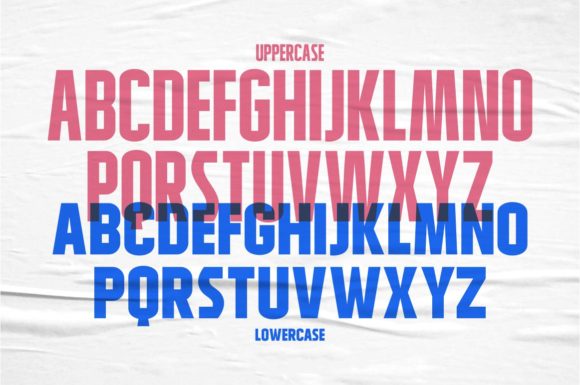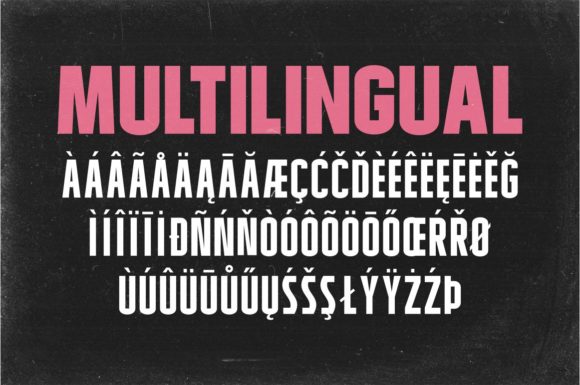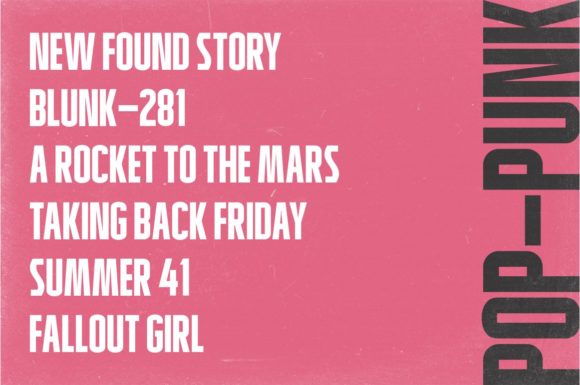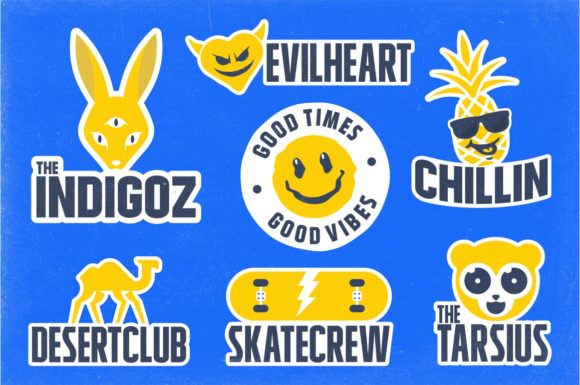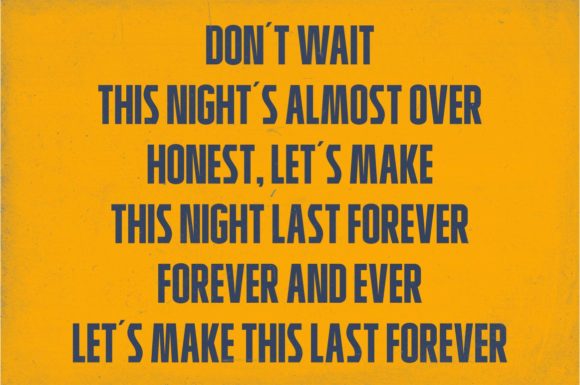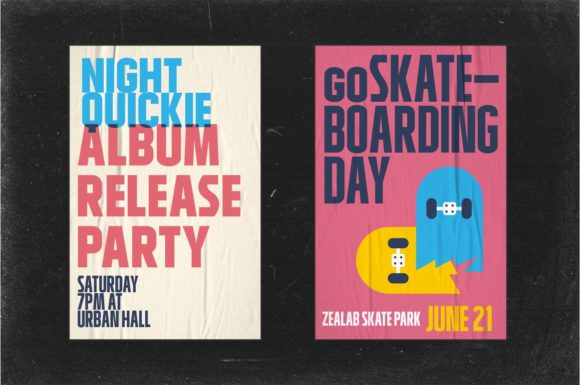
Introduction to Richson Font
Have you ever stared at a blank canvas, eager to bring your creative vision to life? The blank page can be intimidating, but with the right tools, anything is possible. For designers, the perfect font can make all the difference in elevating their work from ordinary to extraordinary. That’s where Richson Font comes in – a strong display font that exudes personality and sophistication.
Richson Font is a game-changer for any creative project, whether it’s a logo, branding, social media post, or flyer. Its high quality and versatility make it an ideal design resource for professionals and enthusiasts alike. With a transparent background and crisp lines, Richson Font is perfect for designers looking to add a touch of elegance to their work.
Key Features of Richson Font
- High-quality font with a transparent background, perfect for creative projects that require a touch of elegance.
- Richson Font features a unique blend of modern and classic elements, making it a versatile choice for various creative projects.
- Perfect for use in logos, branding, and other design elements where a high-quality, professional font is required.
Honest Review: Richson Font
- High quality typography: The Richson Font boasts crisp, clean lines that make it perfect for a variety of design applications.
- Transparency: The transparent background option is incredibly versatile and allows for seamless integration with any background.
- Customization: I’ve been able to easily adjust the font size, style, and color to suit my design needs.
✨ The Richson Font has been a great find for me, and I’ve been able to incorporate it into several high-quality designs.
- ⚠️ Limited font styles: While the Richson Font is available in a few different styles, I would have liked to see more options for variety.
- ⚠️ Not ideal for complex text: While the font looks great for short passages, I found it struggled with more complex text layouts.
Overall, the Richson Font is a solid choice for designers looking for a high-quality, free font option. While it has some limitations, I think its benefits far outweigh its drawbacks.
Introduction to Richson Font
The Richson Font is a high-quality, free design resource ideal for any creative project. Its transparent background makes it easy to use and customize for various applications.
Common Use Cases for Richson Font
The Richson Font is ideal for various design projects, including:
- Logo designs